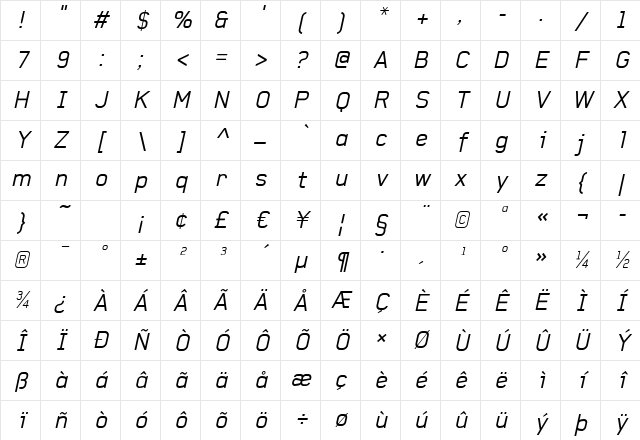
Baksheesh Italic
Design Context for Baksheesh
Baksheesh is a composed and adaptable typeface that performs quietly and consistently across a wide range of design contexts. The slanted form adds forward momentum and visual energy.
Pro Tip: Use Baksheesh for emphasis, pull quotes, and subheadings where its slanted energy can add rhythm to the layout.